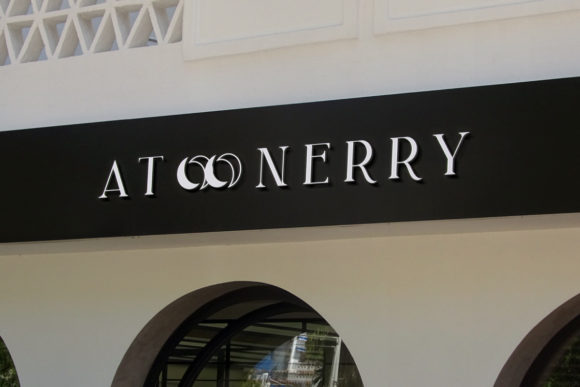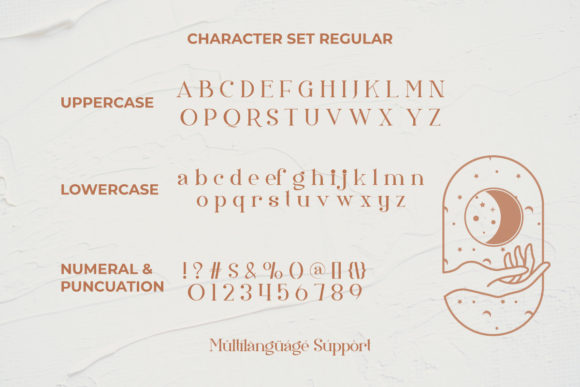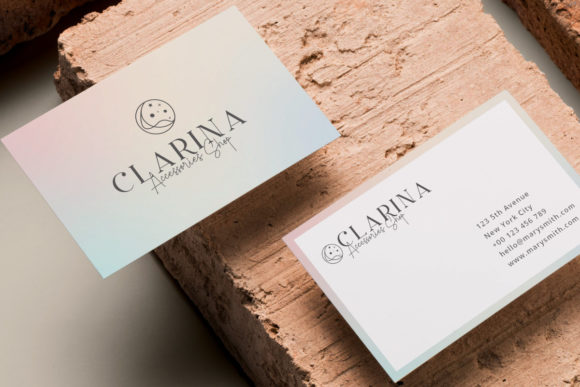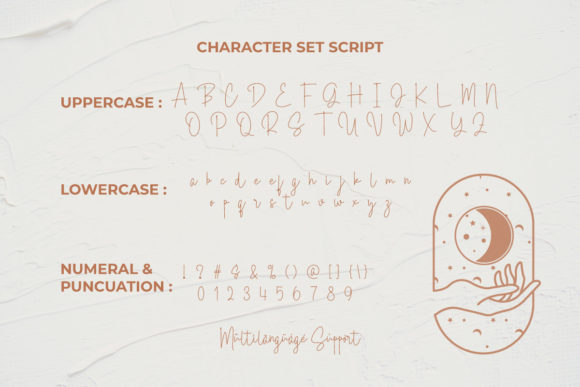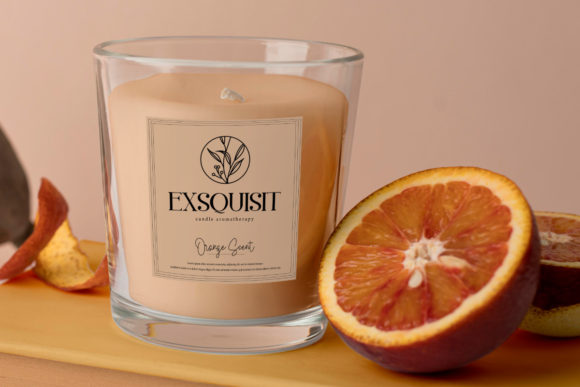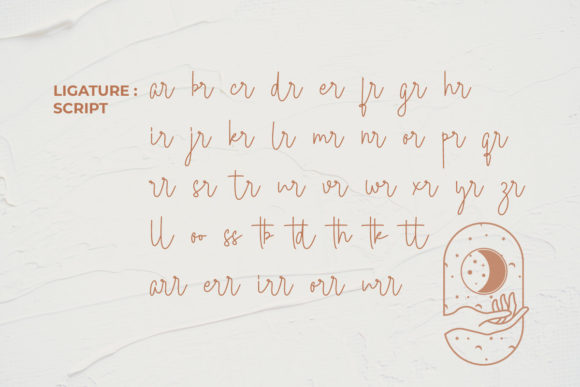
Introduction to Saturday Moon Font
Saturday Moon is a modern and elegant duo font (script and serif.
) The Script font includes ligatures to make everything look totally hand-done and alternates for each letter The Serif font has special rounded characters (moon/lunar) to bring differentiation to your designs.
Key Features of Saturday Moon Font